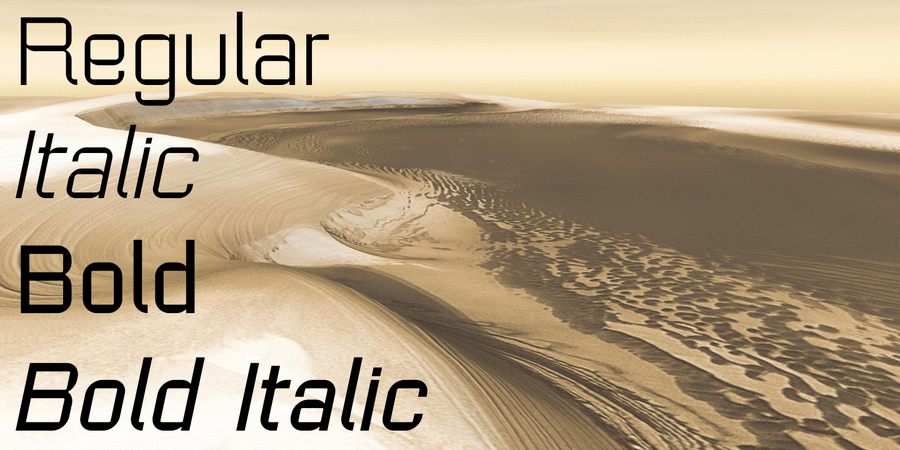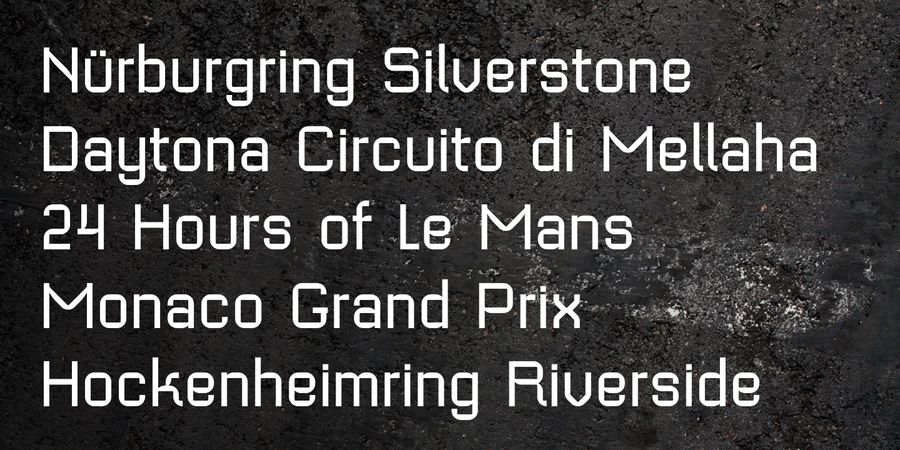
About Geomanticus is a aimple geometric typeface with a clear modular design. It was designed in 2D Studio Design by Lukyan Turetskiy in 2012.
Features of font family GeomanticusThe hit of the decade:
Hit of 1980s Geomanticus supports 29 languagesUkrainian, English, Russian, Belarusian, Serbian, Bulgarian, Karakalpak, Uzbek (Lat.), Abazin, Avar, Agul, Adyghe, Darginsky, Ingush, Kabardino-Circassian, Kabardian, Karachay-Balkar, Kumyk, Lak, Lezghian, Macedonian, Mordovian-Moksha, Mordovian-Erzya, Nogai, Rutulian, Tabasaran, Tatar, Tsakhur, Chechen Functions of font family GeomanticusTypeface use in layout:
Associations for font family GeomanticusTypeface personality and character:
space, laconic, solid, static, accurate, flat, stable, automatic, artificial, cold, machine, engineering, straight, industrial, modern, technogenic, rectangular, futuristic, computer, electronic, urbanistic, indifferent, schematic, experimental, iron, steel, reliable, self-assured, strong, cinematic